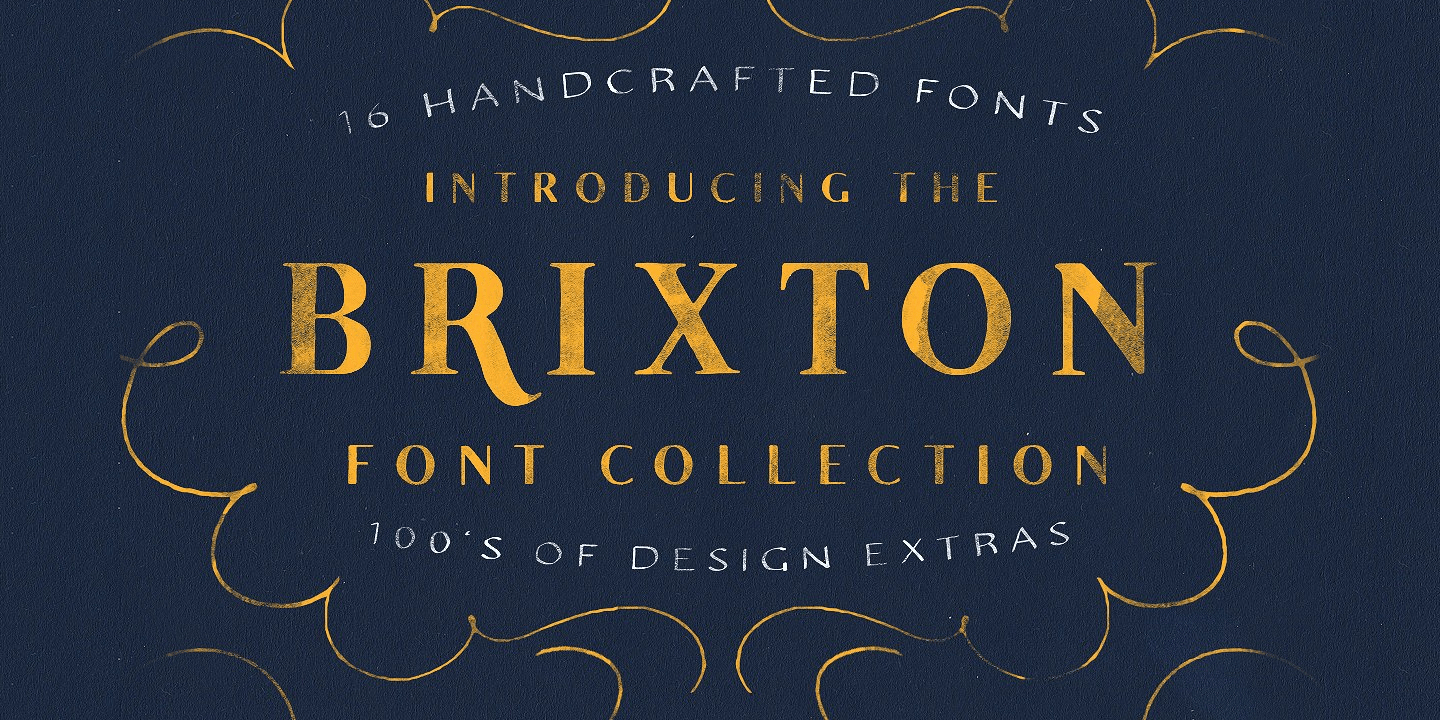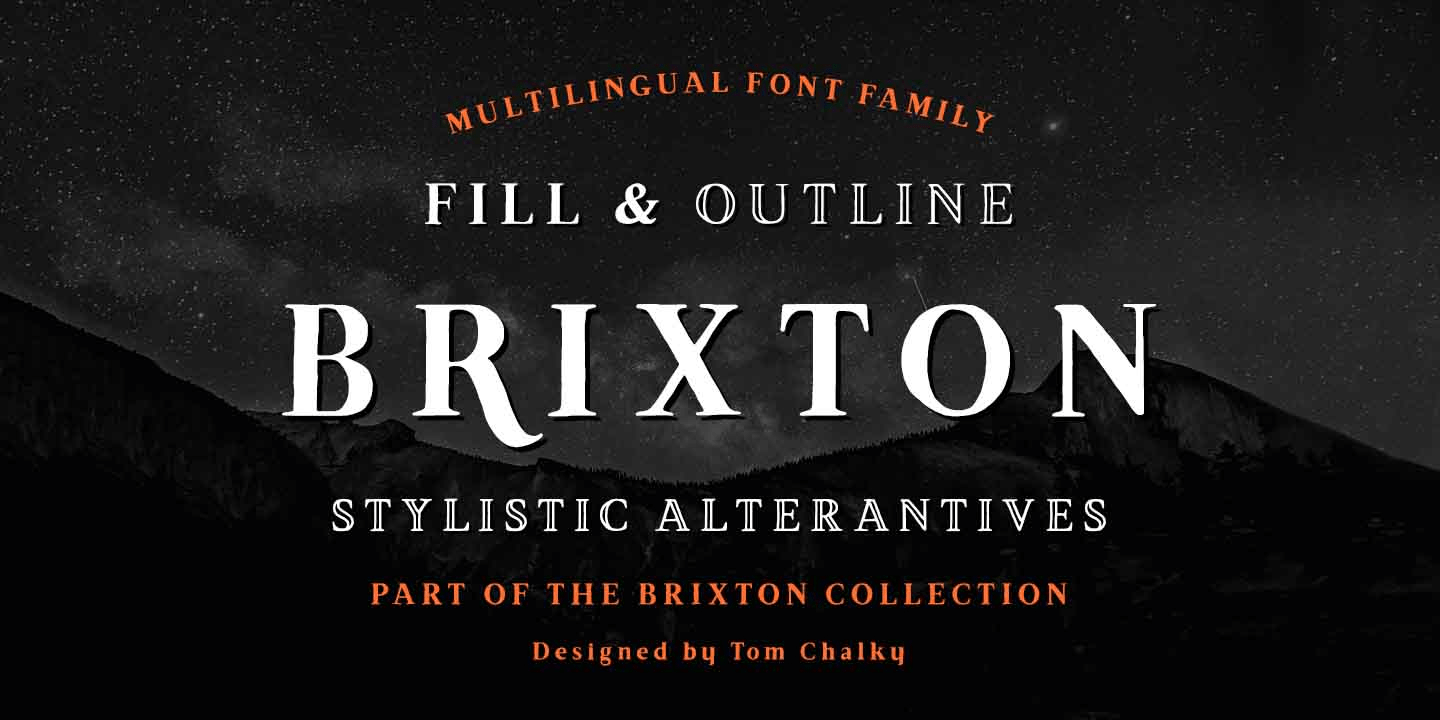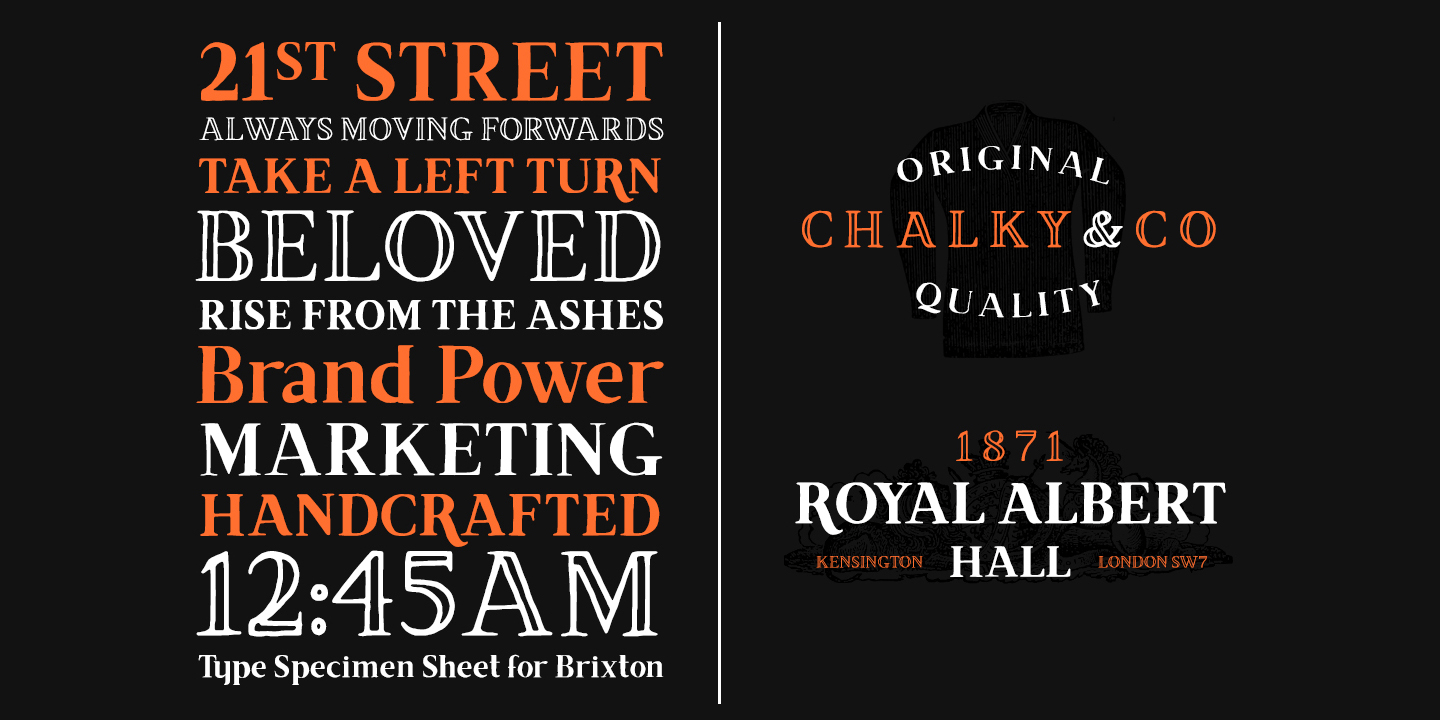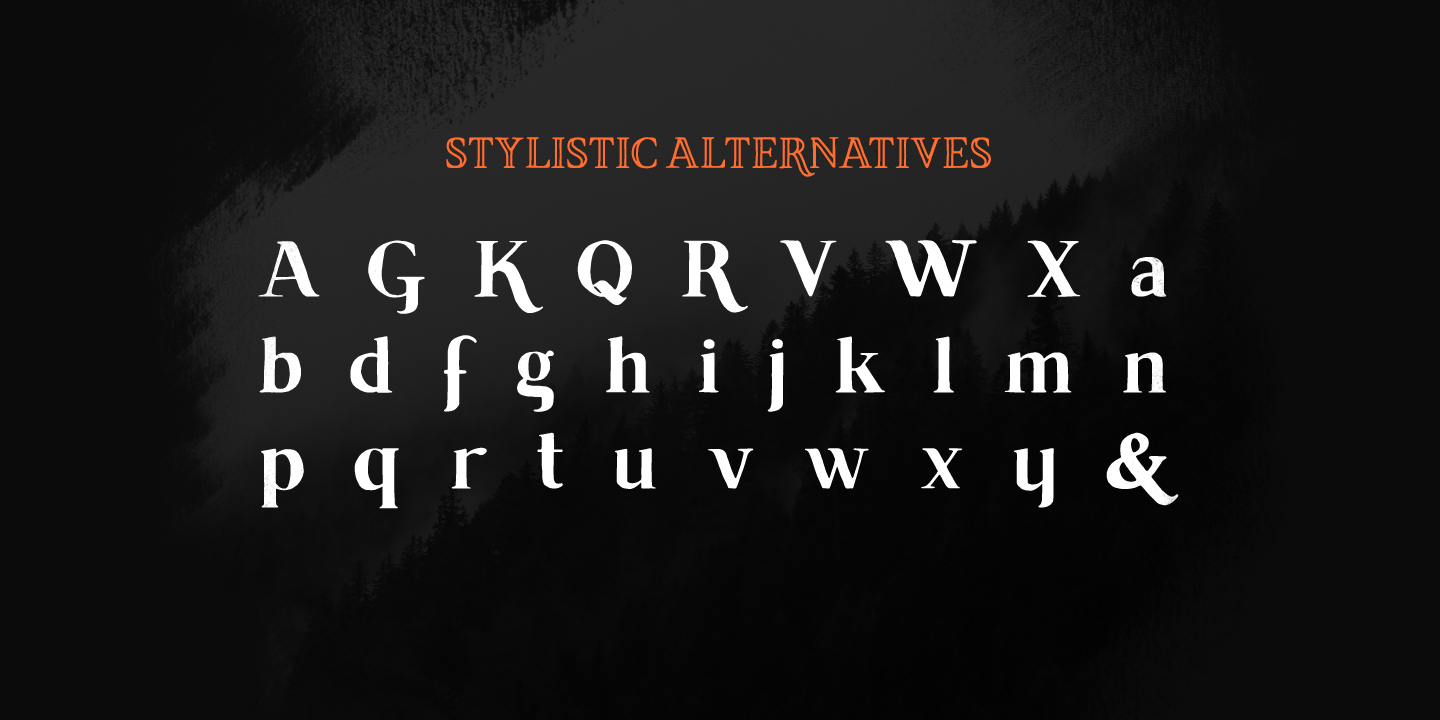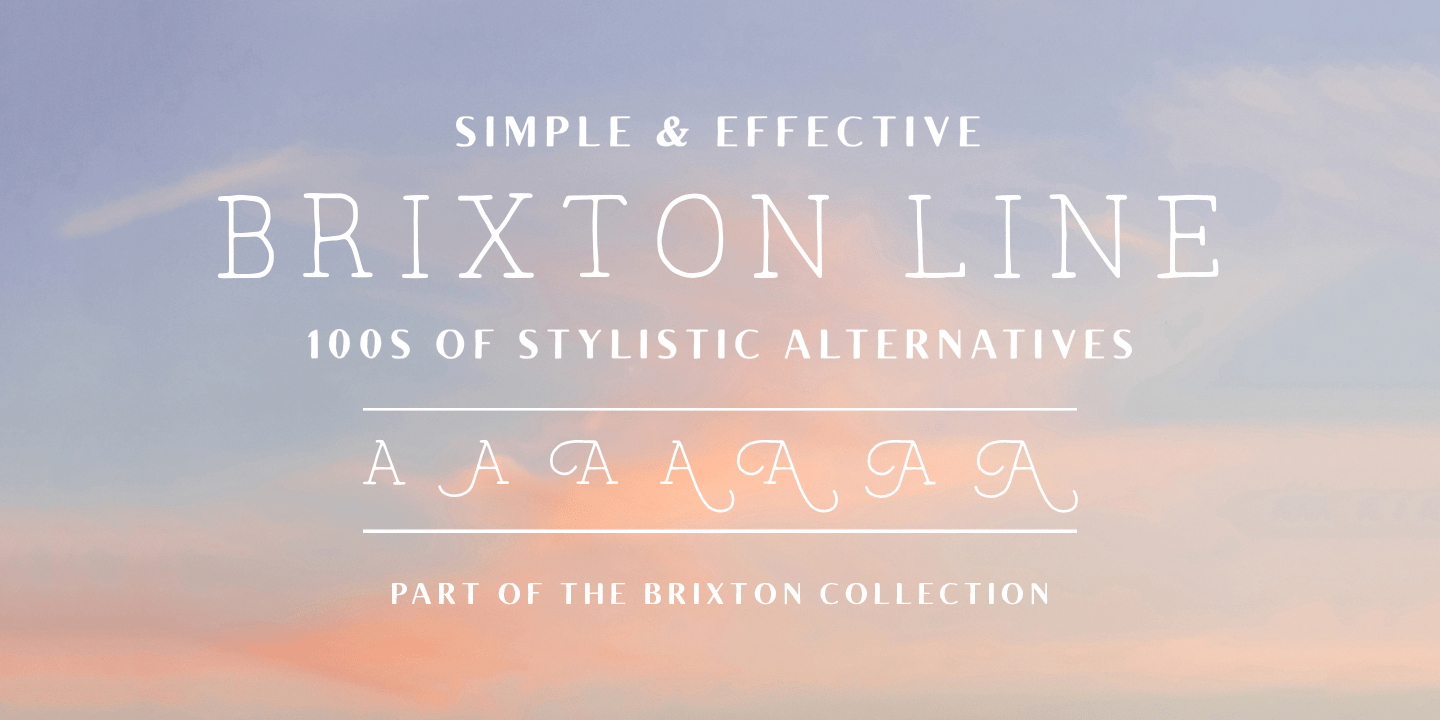
The Brixton Collection
Font Family by Tom Chalky
This stunning collection of fonts has been something that I have been tinkering with since I started font design. The original Brixton font was one of my first ever designs and since its launch, I have added and edited the family to what it is here before you. I still don't think I am entirely done!